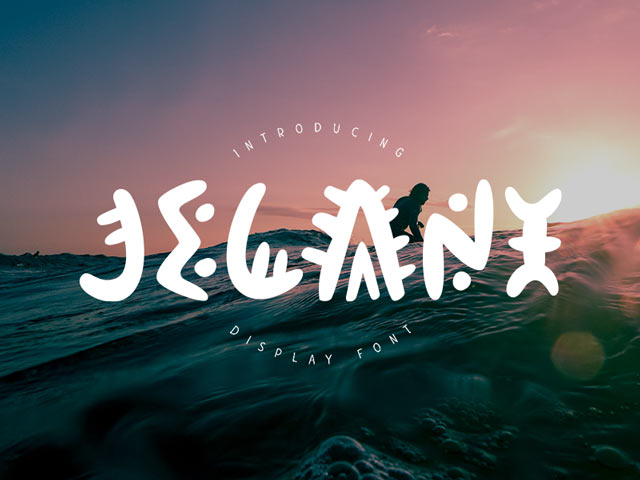
Jelani Display Font
Download this a unique and free authentic font by chekart. Jelani font is based on African motifs. It contains a full set of lower & uppercase letters, large range of punctuation, numerals, cyrillic characters and multilingual support.
Perfect for logos, quotes, posters, branding projects, product packaging, t-shirt, book cover, greeting cards and applicable for any graphic design. Enjoy!